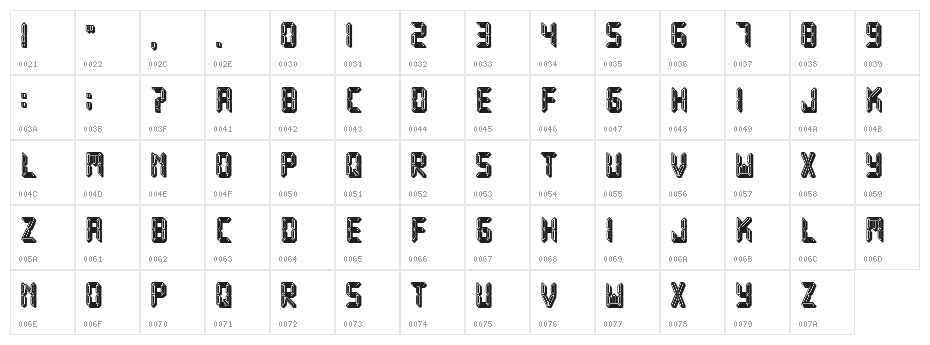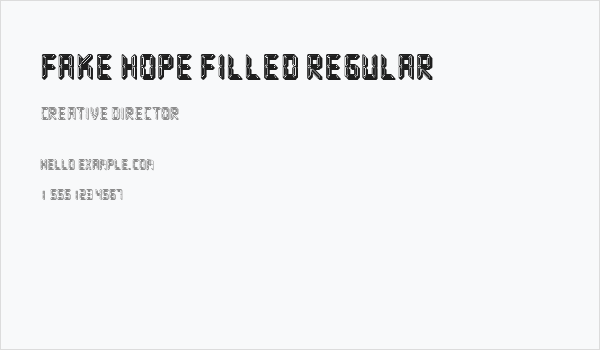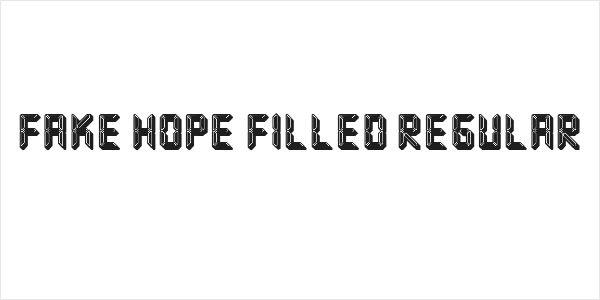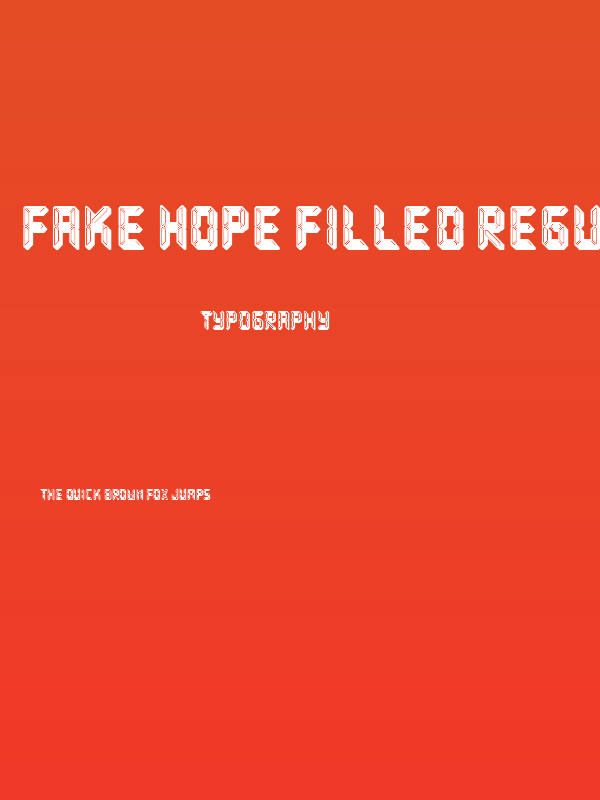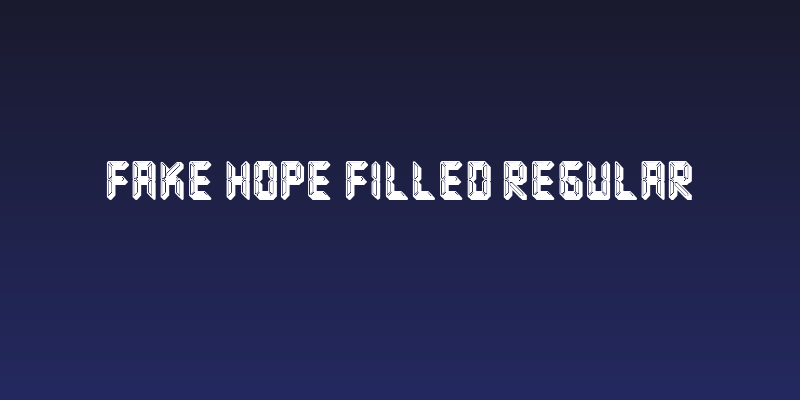
Fake Hope Filled Regular Font
Fake Hope Filled Regular Description
This font features a bold, geometric design with a futuristic and digital aesthetic. Each character is constructed with angular, segmented lines that resemble the display of a digital clock or a retro video game interface. The style is highly decorative, with a three-dimensional effect created by the use of shading and outlines. The uppercase and lowercase letters maintain a consistent blocky form, while the numbers and special characters follow the same angular theme. This font is ideal for projects that require a modern, tech-inspired look.
| Use Case | Logos, Headlines, Digital interfaces |
| Proposed Projects | Ideal for technology-themed designs, video game graphics, digital interfaces, and modern branding projects. |